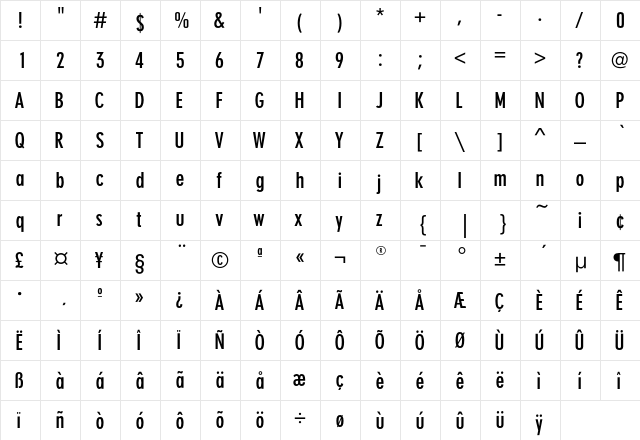
DigiGroteskNEF-SemiBoldCond Regular Font Preview
Design Context for DigiGroteskNEF-SemiBoldCond Typeface
DigiGroteskNEF-SemiBoldCond takes a clean, functional approach — its unadorned letterforms prioritise legibility and work reliably across screen and print environments. The heavy weight commands attention and anchors typographic hierarchies. Its narrow stance lets it pack a punch even in space-constrained designs.
Font Pairing: Works well alongside a characterful serif or display font that can carry the expressive load while DigiGroteskNEF-SemiBoldCond handles the functional copy.
Pro Tip: Try DigiGroteskNEF-SemiBoldCond in all-caps with moderate tracking for navigation and label copy — it performs well in systematic UI contexts.